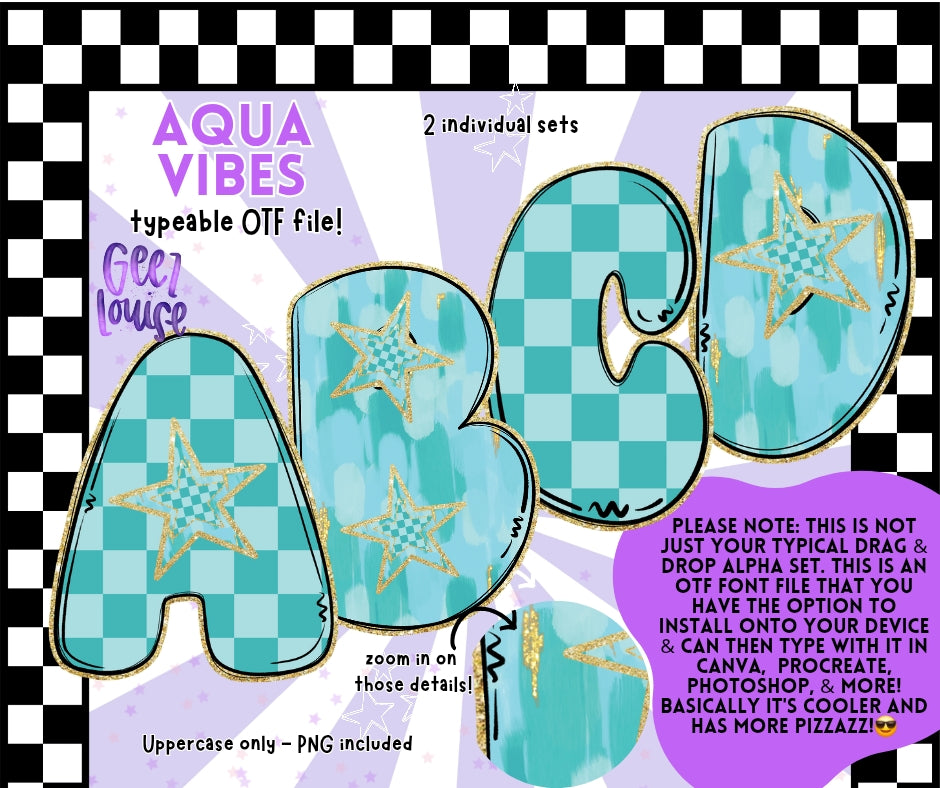
Aqua Vibes Bubble - TYPEABLE OTF Font - Alpha Set - Digital Download- PNG
Get ready for Aqua Vibes—two bold and stylish typeable OTF font sets that bring all the checkerboard and starry magic! These aren’t your typical drag-and-drop alpha sets. You can install them on your device and use them in Canva, Procreate, Photoshop, and more!
✔ High-quality details – Crisp, clear, and eye-catching